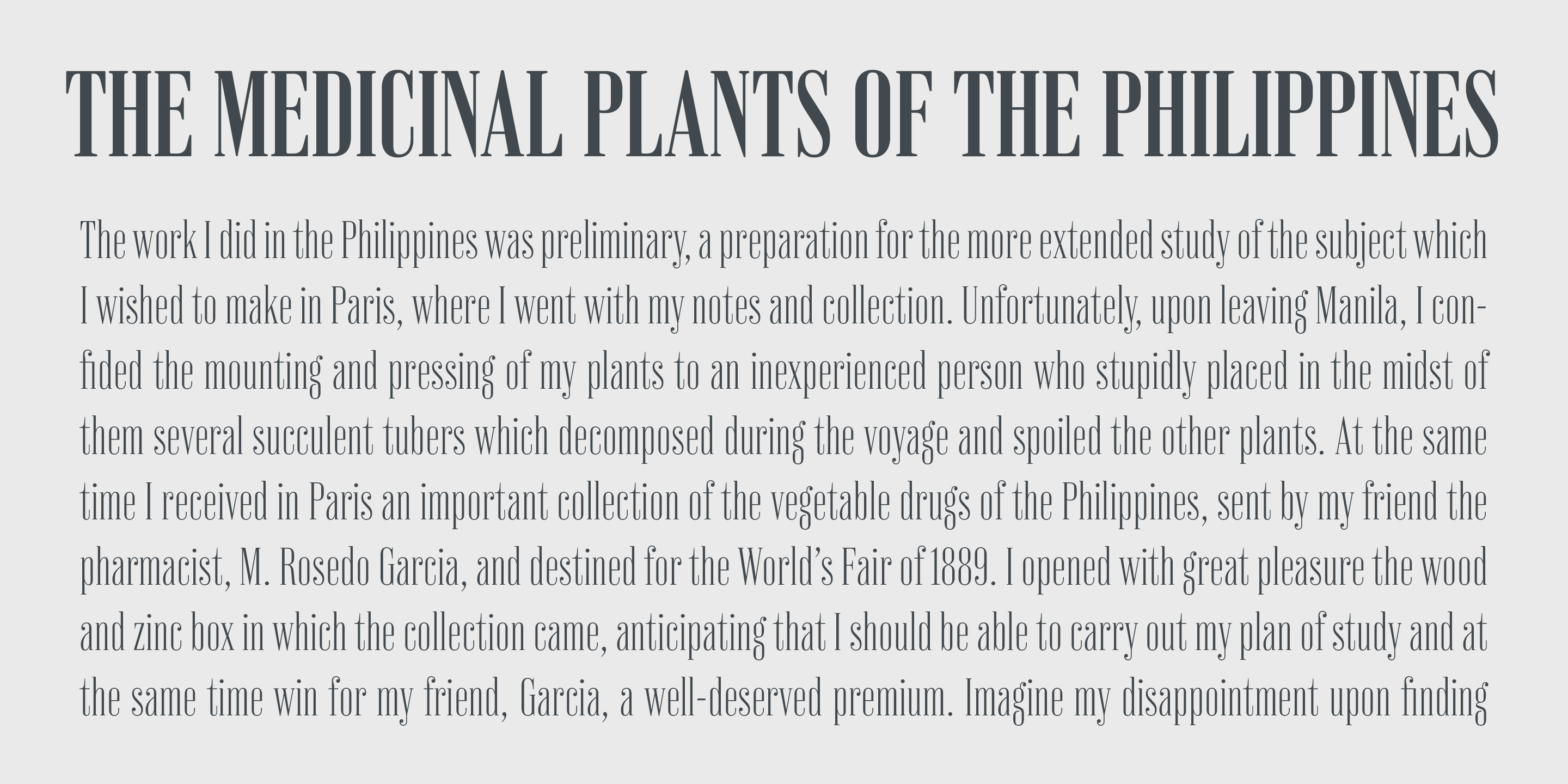
This sophisticated typeface excels in various cultured applications including art gallery exhibitions, Italian restaurant branding, classical music programs, vineyard wine labels, Mediterranean resort identities, museum catalogs, European fashion houses, and architectural heritage projects. The Vincente Font embodies Renaissance elegance with its masterfully proportioned letterforms that echo the artistic legacy of Italian masters and European cultural refinement.
What makes this font truly exciting is its ability to channel centuries of artistic tradition through contemporary typography that feels both historically grounded and refreshingly modern. The exquisitely crafted characters feature classical proportions, refined serifs, and harmonious curves that make every word feel like it belongs in a Venetian palazzo. Its distinctive personality combines old-world sophistication with contemporary functionality, creating typography that speaks to cultured audiences with timeless grace.
The Vincente Font family includes artistically-inspired variations: Light, Regular, Medium, Bold, and Display weights, each with matching italics inspired by Renaissance calligraphy. Every family member maintains the signature cultured character while providing versatility for creating designs that range from quietly elegant to dramatically artistic.